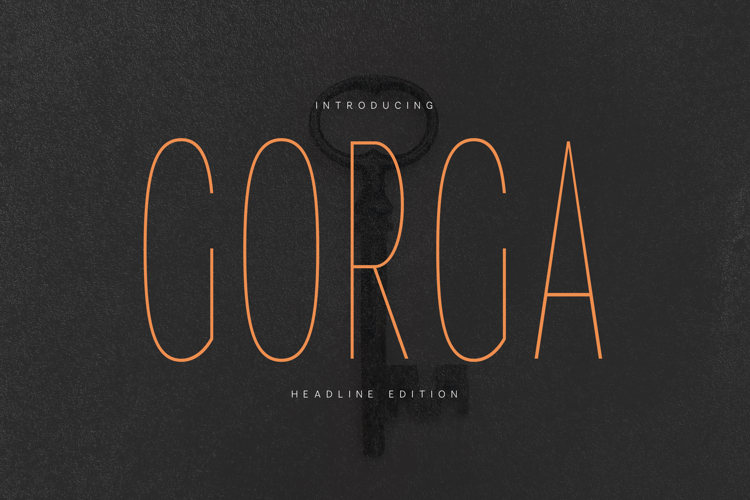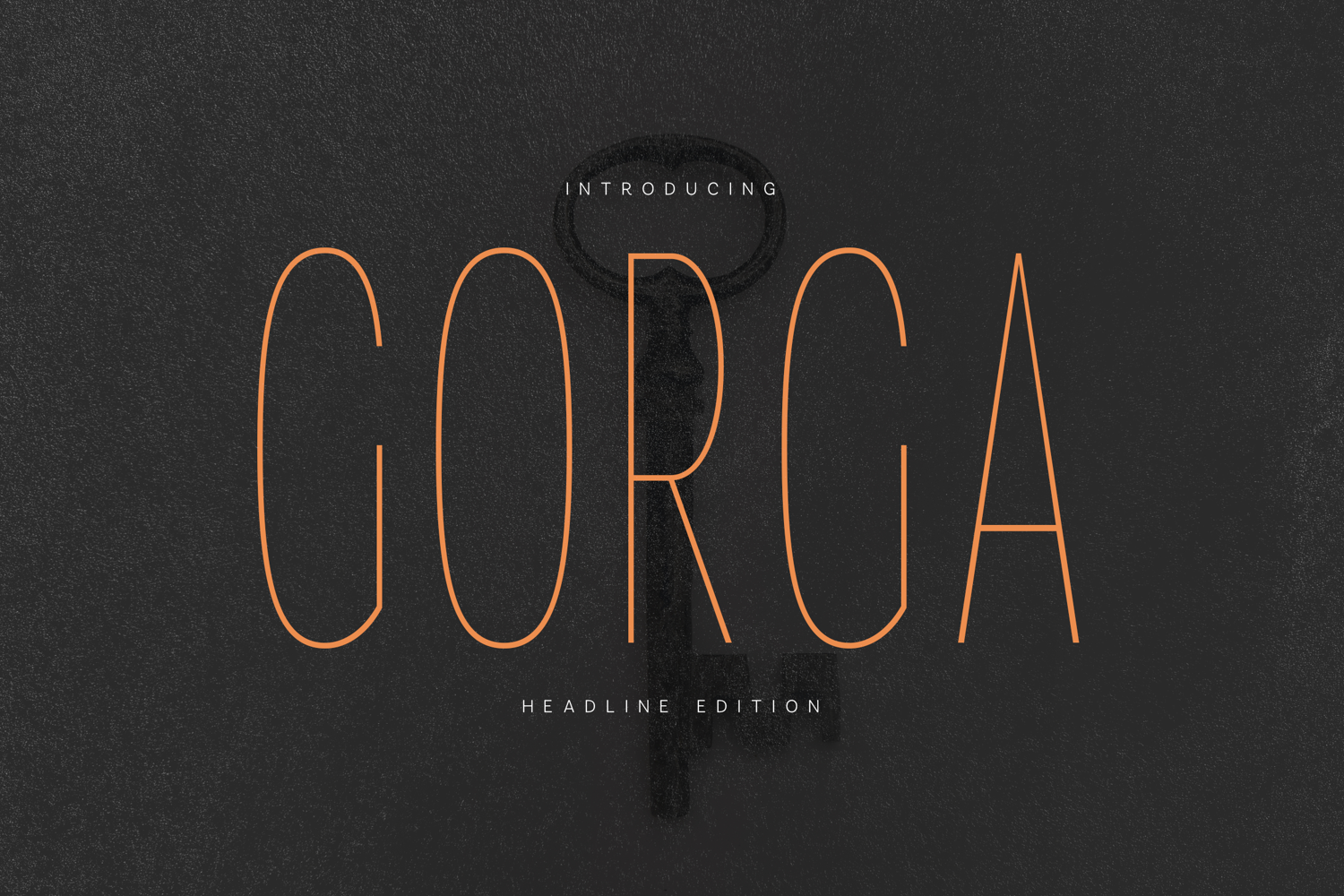
Gorga Modern Condensed Headline Font
Gorga is a modern condensed headline typeface built for clarity, elegance, and emotional restraint.
With its tall proportions, soft curves, and minimal construction, Gorga balances strength and subtlety—making it ideal for contemporary branding, editorial layouts, posters, and statement typography.
Designed with a calm, forward-looking aesthetic, Gorga performs best at large sizes where its vertical rhythm and open counters truly shine. The rounded terminals soften the structure just enough to create a human, approachable feel without losing its architectural precision.
The font includes full uppercase and lowercase characters, numerals, punctuation, symbols, and extended Latin language support—making it suitable for international use across print and digital projects.
Brand identities, headlines, posters, magazines, packaging, web design, social media graphics, and modern visual systems.